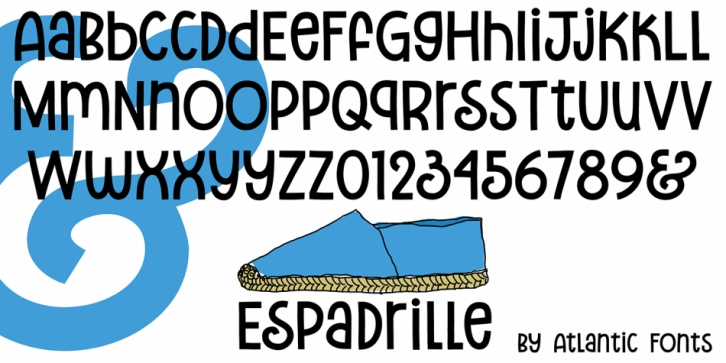
Designed by Amy Dietrich, Espadrille is a sans serif font published by Atlantic Fonts.
Step in to your next project with comfort. Espadrille is handmade, clean, and friendly, without being loud. Appealing for a casual, but style conscious crowd - whether brightening t-shirts, posters, packaging, or publications, its one-height upper and lower case make it fun for creative blocks of text and mixing cases at will. It features double-letter discretionary ligatures as well as a few extras.